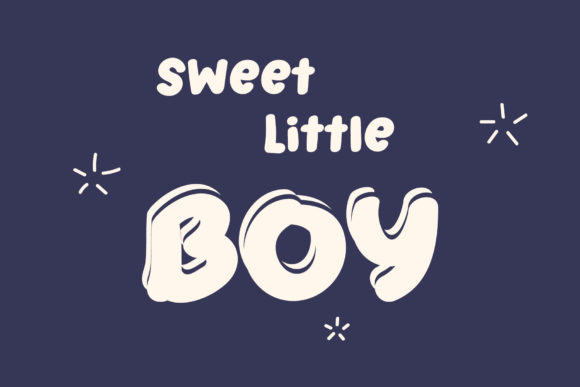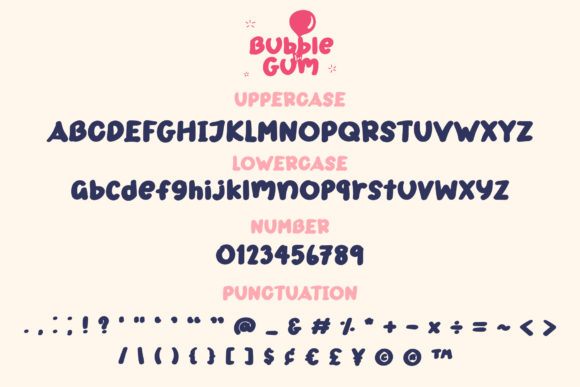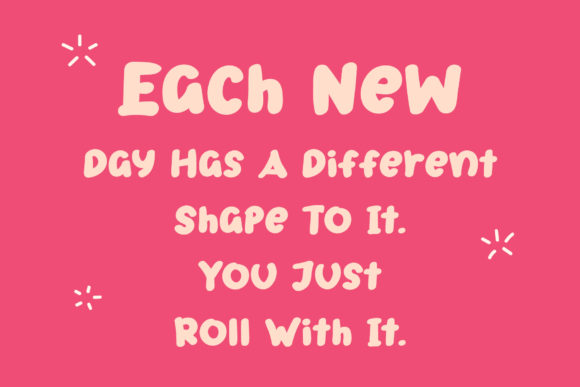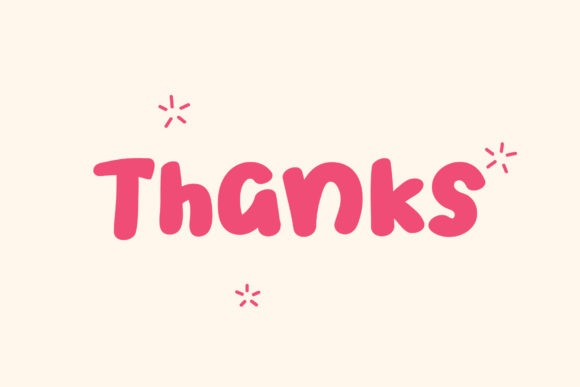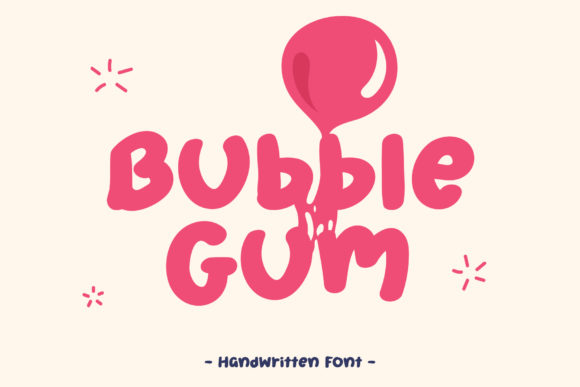
Bubble Gum Font: The Sweetest Addition to Your Design Projects
Are you tired of using the same old fonts in your design projects? Look no further than the Bubble Gum font, a cute and casual handwritten font that’s sure to add a touch of friendliness to any creative endeavor. With its incredibly friendly feel, this font is perfect for designers and crafters looking to add a personal touch to their work.
The Perfect Font for Instagram and Beyond
Bubble Gum is a versatile font that’s perfect for a variety of design projects, from Instagram posts and stories to calligraphy scripts for DIY projects. Its playful, handwritten feel makes it ideal for adding a personal touch to your designs, whether you’re creating social media graphics, invitations, or craft projects. Whether you’re a professional designer or a crafty DIY enthusiast, this font is sure to become a favorite in your collection.
What Makes Bubble Gum Font So Special?
So, what sets Bubble Gum apart from other fonts on the market? Here are just a few reasons why this font is a standout:
- Cute and Casual: Bubble Gum has a playful, laid-back feel that’s perfect for designers and crafters who want to add a touch of whimsy to their work.
- Handwritten Feel: This font has a genuine, handwritten feel that’s sure to add a personal touch to any design project.
- Friendliness: The Bubble Gum font exudes friendliness, making it perfect for designs that need to convey a sense of approachability and warmth.
- Versatility: Whether you’re creating social media graphics, invitations, or craft projects, Bubble Gum is a versatile font that’s sure to shine.
How to Use Bubble Gum Font in Your Design Projects
Ready to get started with Bubble Gum? Here are a few ideas for incorporating this sweet font into your design projects:
- Instagram Graphics: Use Bubble Gum to create eye-catching Instagram posts and stories that showcase your brand’s personality.
- DIY Projects: Add a personal touch to your DIY projects, such as handmade cards, gift tags, and scrapbook pages, with this charming font.
- Calligraphy Scripts: Use Bubble Gum as a starting point for creating your own calligraphy scripts, perfect for adding a touch of elegance to your designs.
- Branding and Packaging: Consider using Bubble Gum as a font for your brand’s logo or packaging, especially if you’re looking to convey a sense of friendliness and approachability.
Tips for Getting the Most Out of Bubble Gum Font
To get the most out of Bubble Gum, here are a few tips to keep in mind:
- Experiment with Colors: Bubble Gum looks great in a variety of colors, so don’t be afraid to experiment and find the perfect hue for your design.
- Mix and Match: Combine Bubble Gum with other fonts to create a unique and eye-catching design.
- Play with Size: Use Bubble Gum in a variety of sizes to add visual interest to your design.
- Add Texture: Consider adding texture to your design to give it a more organic, handmade feel.
In conclusion, Bubble Gum is a sweet and charming font that’s sure to add a touch of friendliness to any design project. With its cute and casual feel, handwritten aesthetic, and versatility, this font is perfect for designers and crafters looking to add a personal touch to their work. Whether you’re creating Instagram graphics, DIY projects, or calligraphy scripts, Bubble Gum is a font that’s sure to turn any creative idea into a true piece of art!